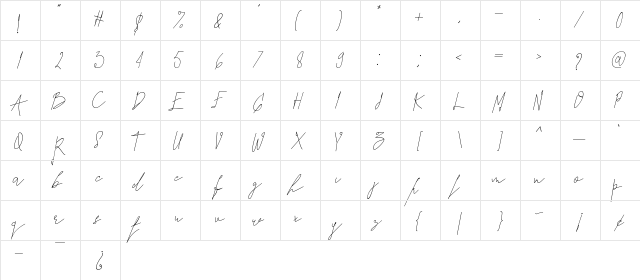
Seventeen Winter Italic
Design Context for Seventeen Winter Typeface
Seventeen Winter is a composed and adaptable typeface that performs quietly and consistently across a wide range of design contexts. The dynamic lean of this cut emphasises speed and emphasis in any layout.